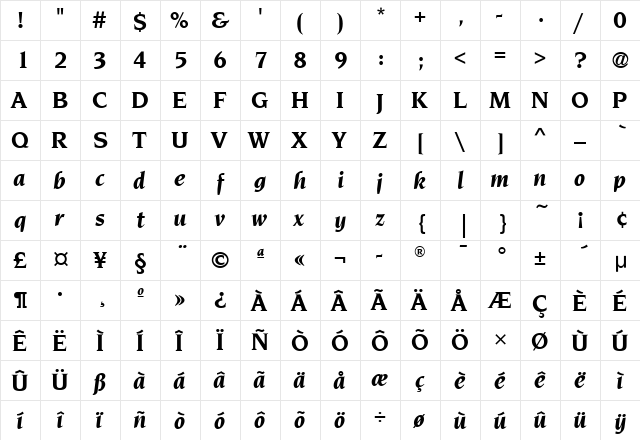
NovareseITC Bold Italic
Design Context for NovareseITC Typeface
NovareseITC is a composed and adaptable typeface that performs quietly and consistently across a wide range of design contexts. The slanted form adds forward momentum and visual energy. Its bold stroke weight gives it real presence on the page.
Pro Tip: Try NovareseITC for annotation and caption copy alongside an upright companion — the contrast in angle creates a dynamic but ordered typographic system.